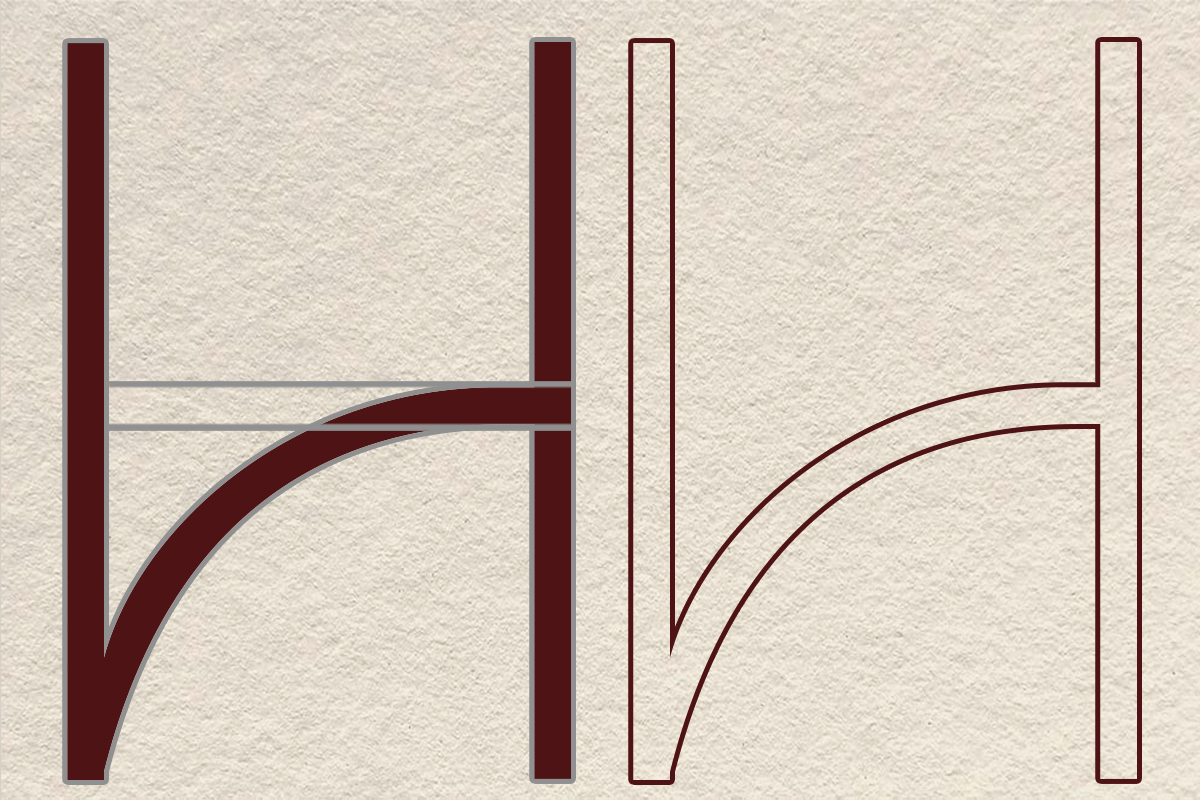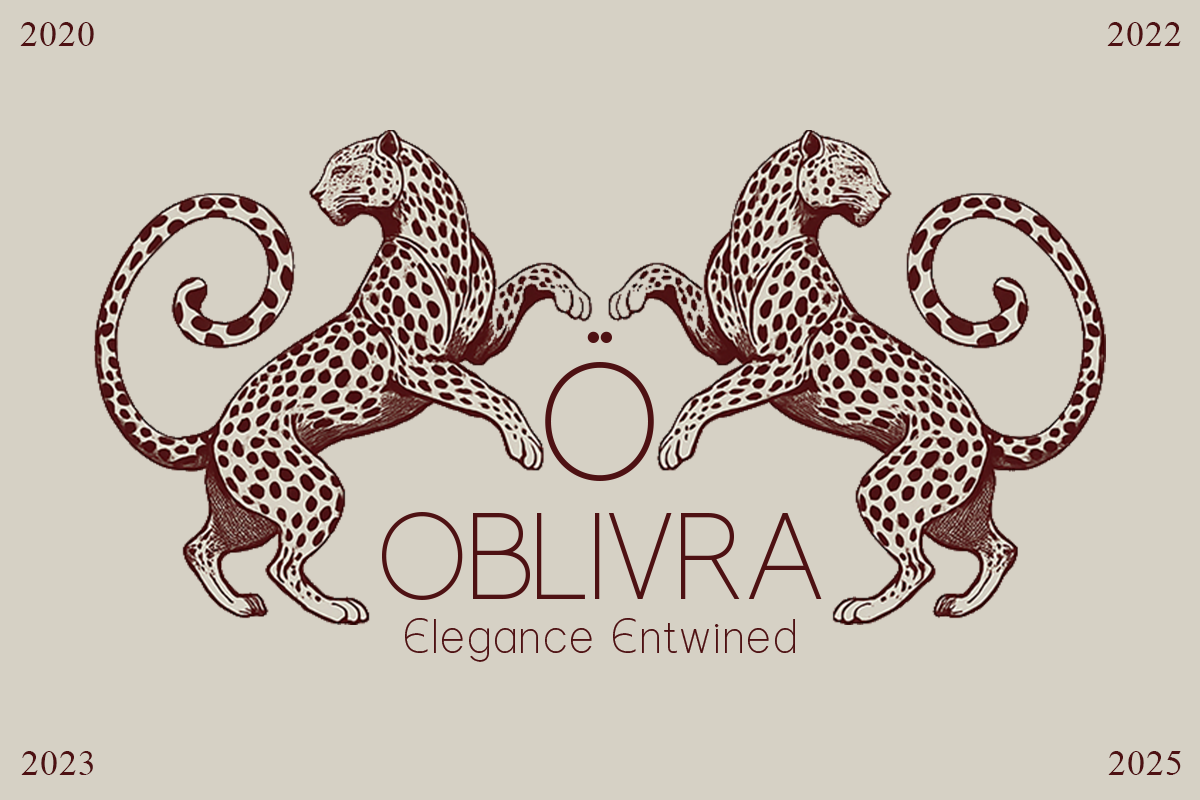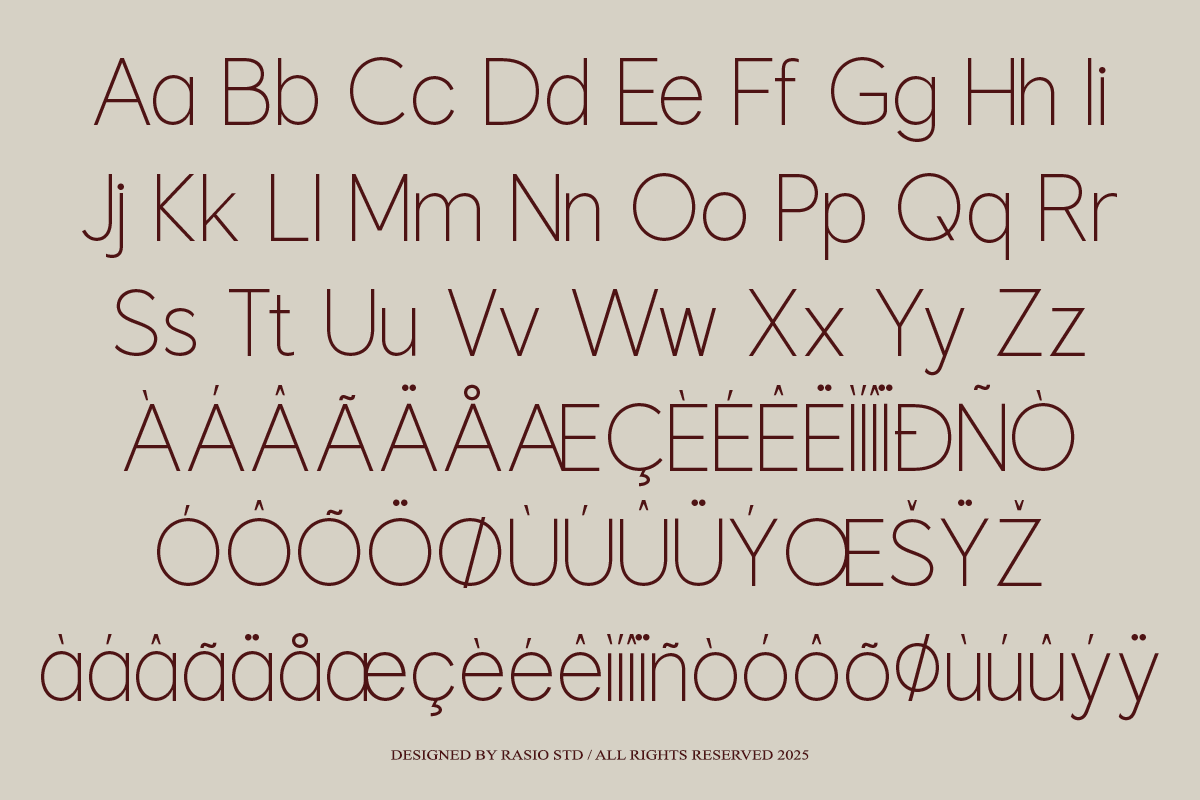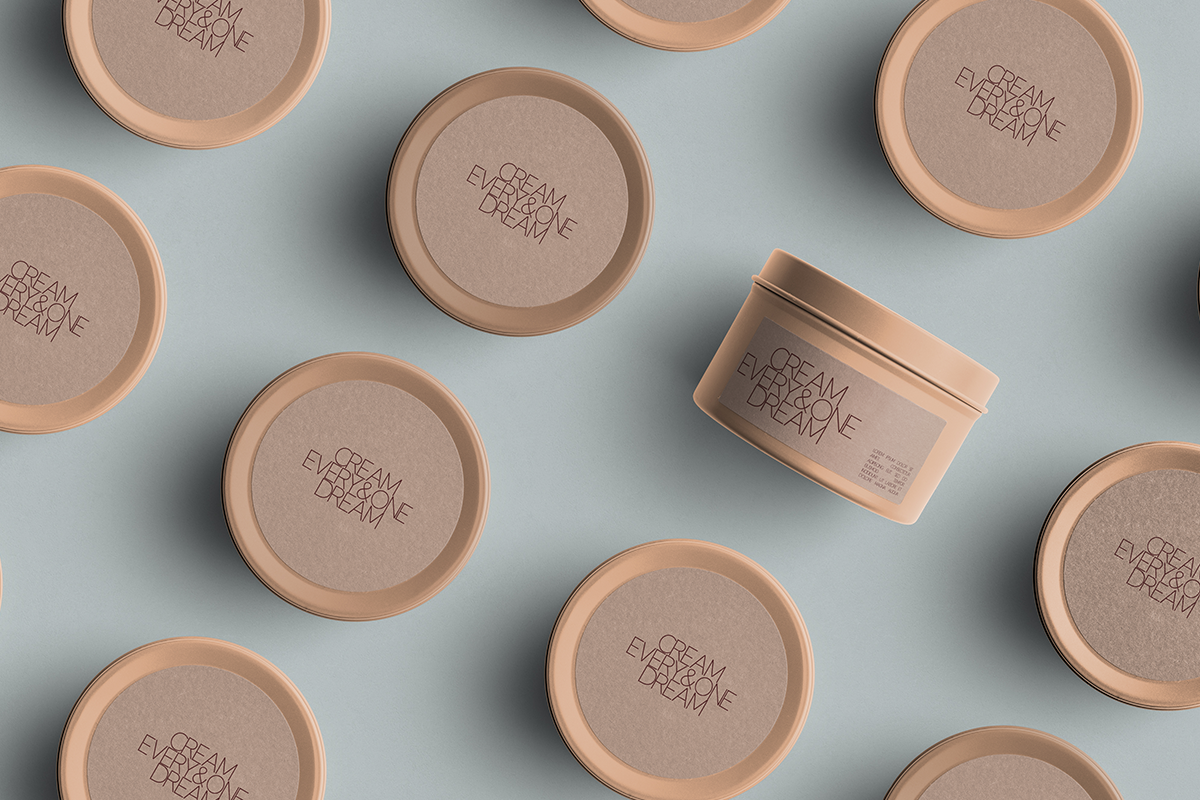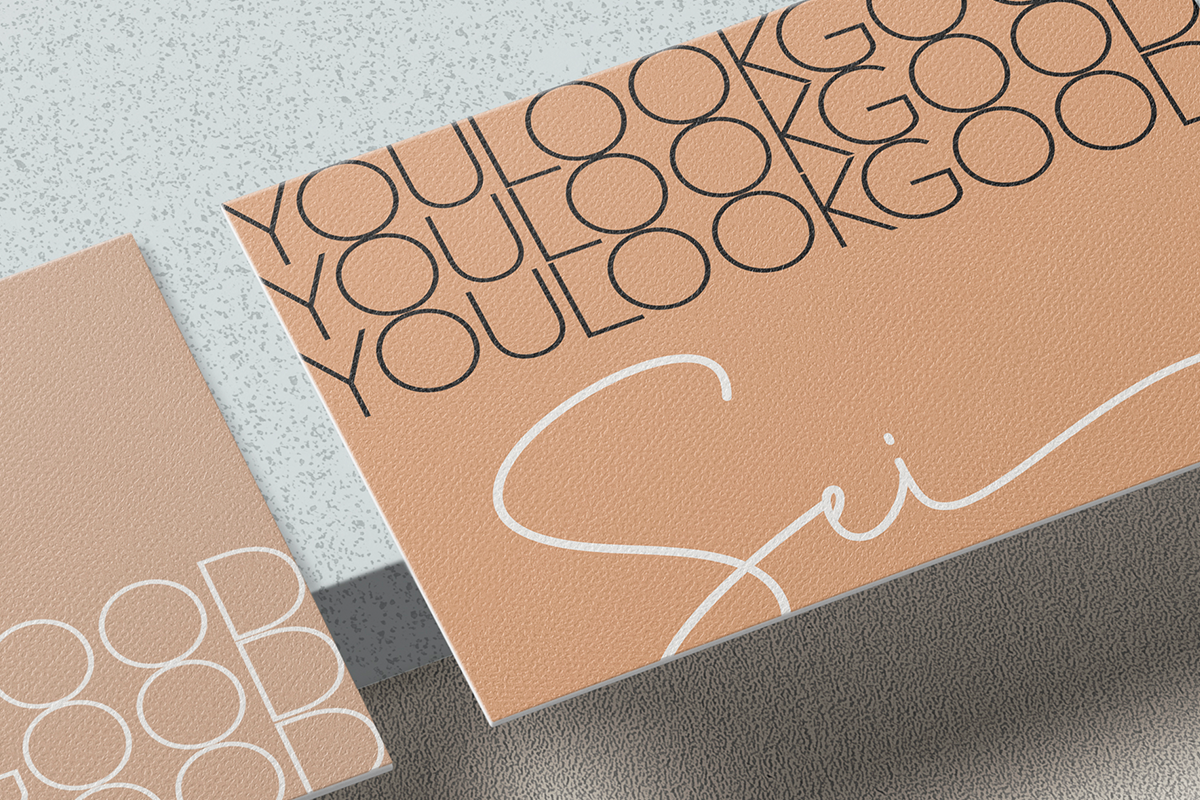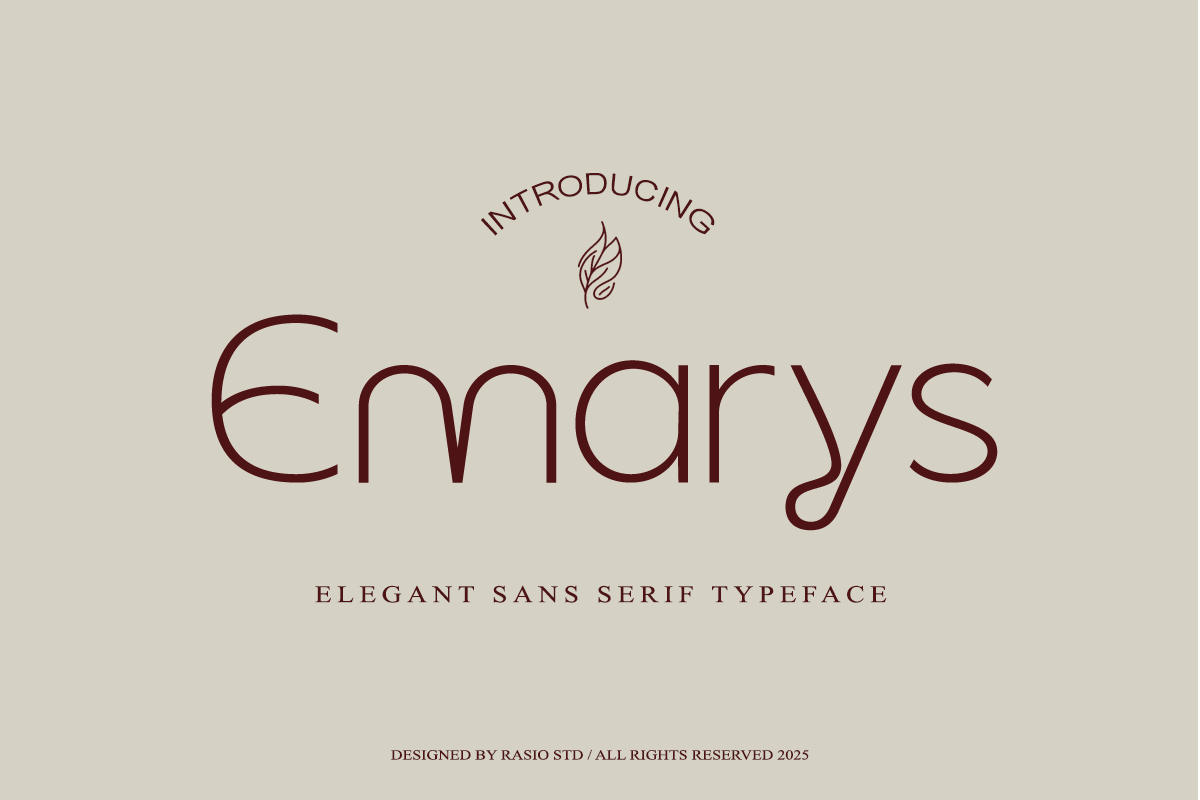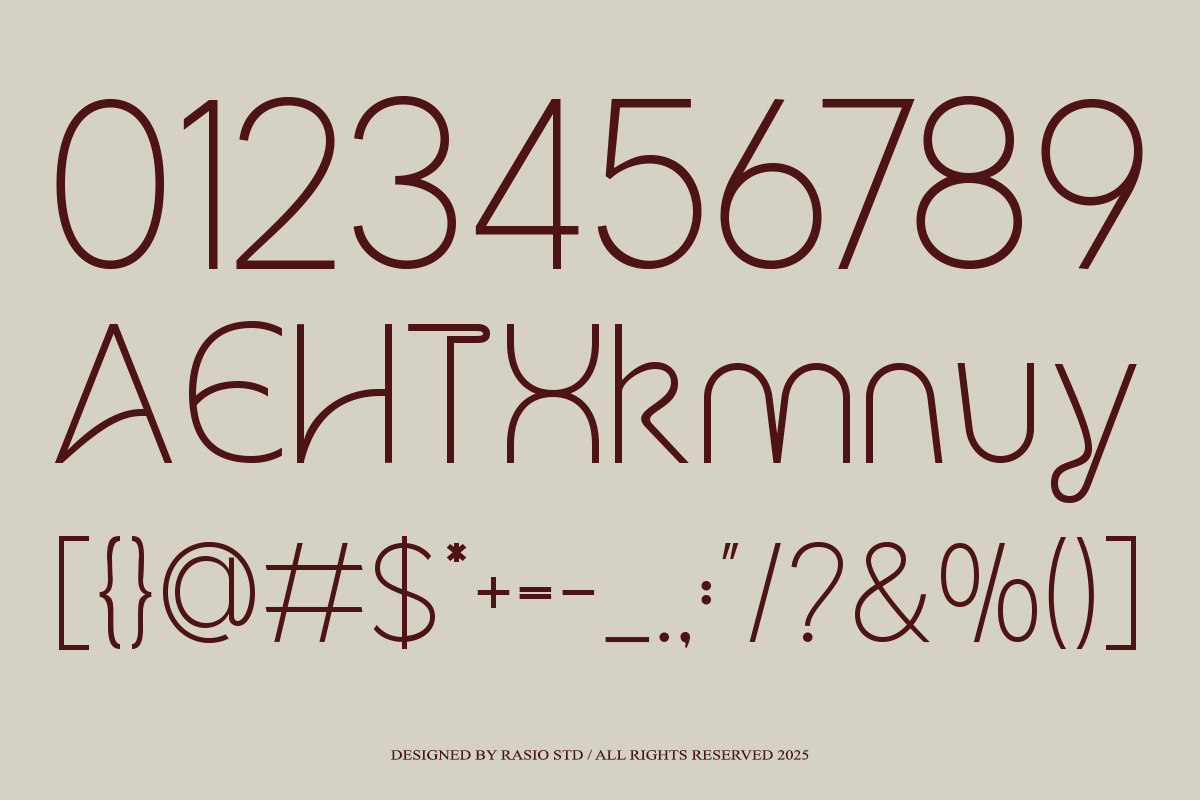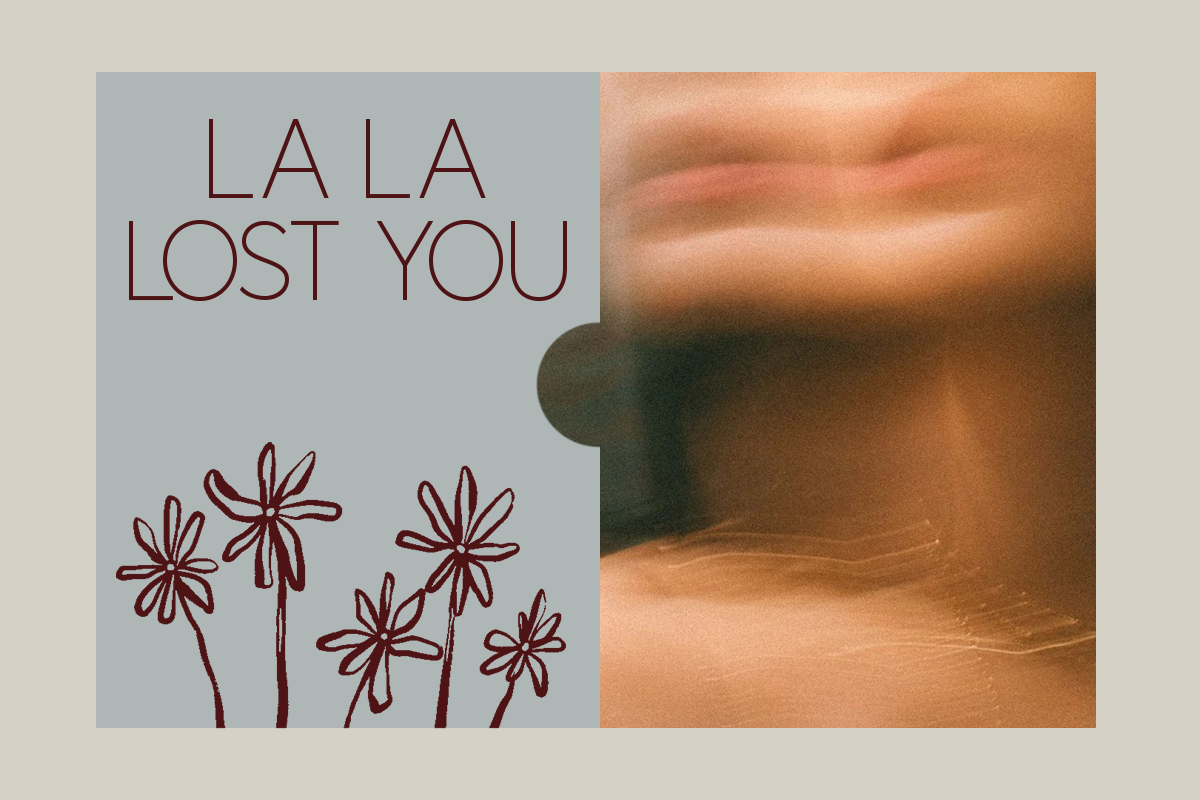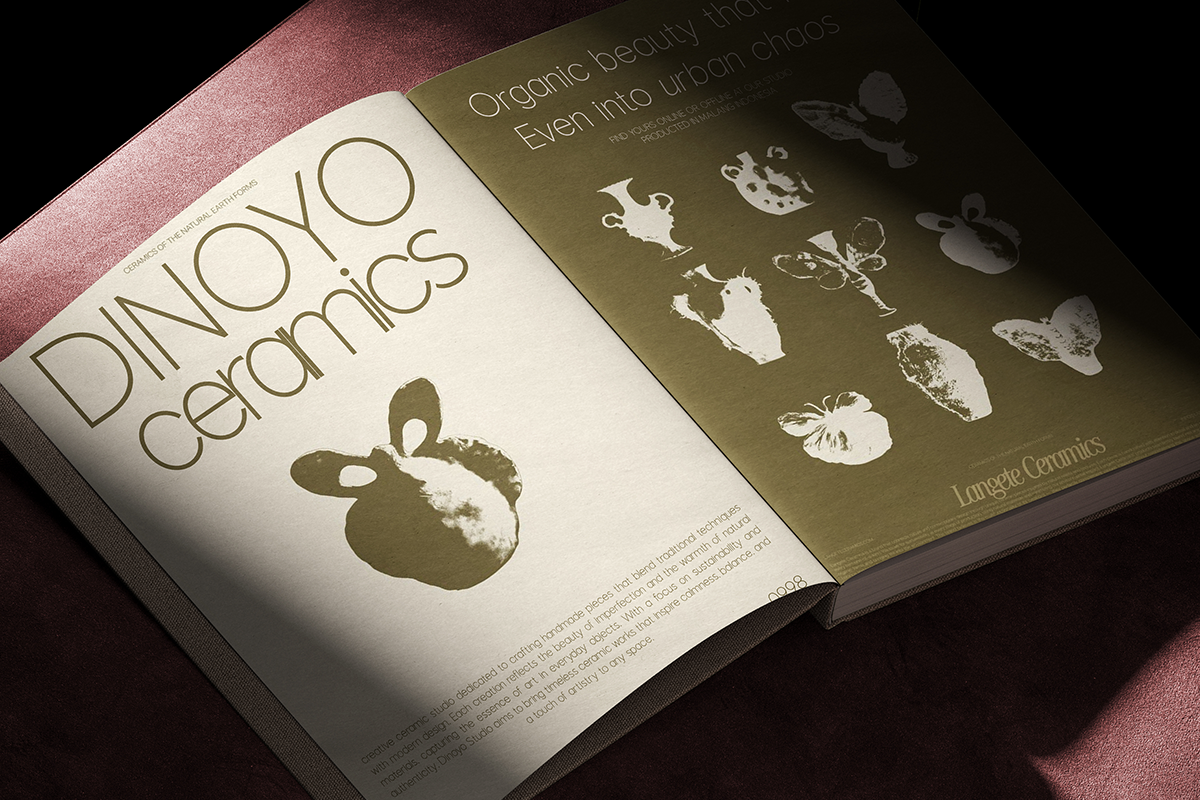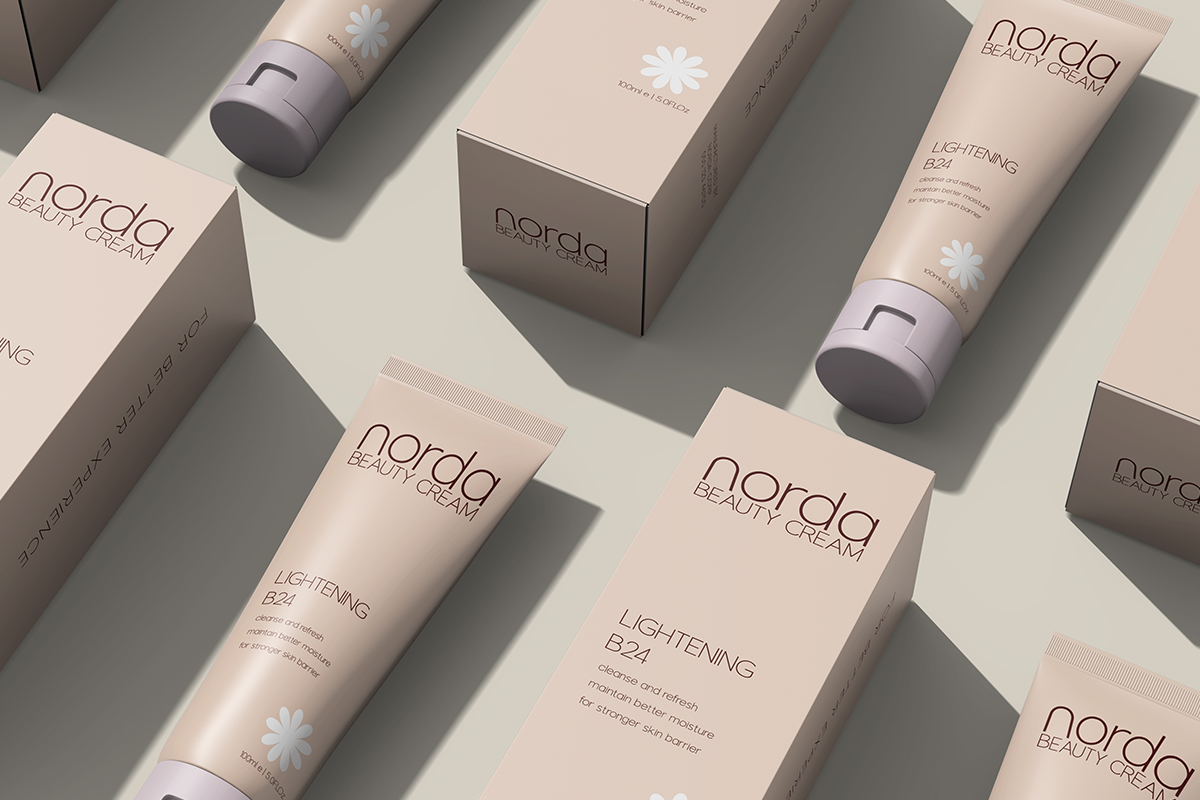
Emarys Elegant Sans Serif Font
Emarys is a refined sans serif typeface that blends modern minimalism with graceful sophistication. Designed with balanced proportions, subtle contrast, and soft terminals, it delivers a timeless sense of elegance for premium visual branding. Each letterform exhibits smooth geometry and natural rhythm, making Emarys perfect for editorial layouts, packaging design, and luxury branding applications.
Relevance and Use Cases is perfect for branding agencies, editorial designers, luxury product packaging, and fashion identity projects seeking a refined and professional tone. Emarys brings elegance, clarity, and balance to any design it graces.
- Elegant sans serif with clean and refined letterform structure
- Soft curves combined with subtle geometric balance for a graceful look
- Minimal stroke contrast for a smooth and modern appearance
- Distinctive character details adding a gentle and stylish personality
- Well-balanced spacing for clarity in both display and refined text layouts
- Elegant brand identity with a soft and refined visual tone
- Beauty, fashion, and lifestyle branding with a modern feminine touch
- Editorial layouts such as magazines, lookbooks, and creative publications
- Logo design with clean and stylish sans serif character
- Product packaging with a minimal and sophisticated aesthetic
Emarys brings graceful simplicity through a modern sans serif with a soft and elegant touch